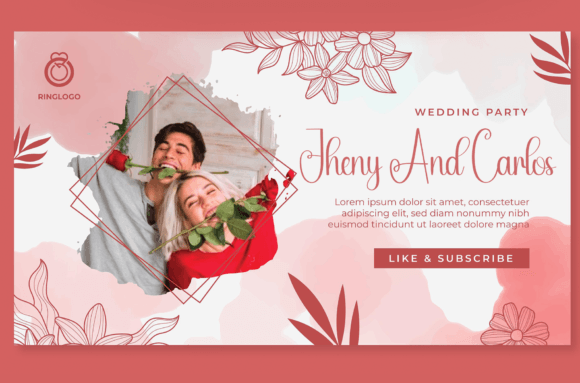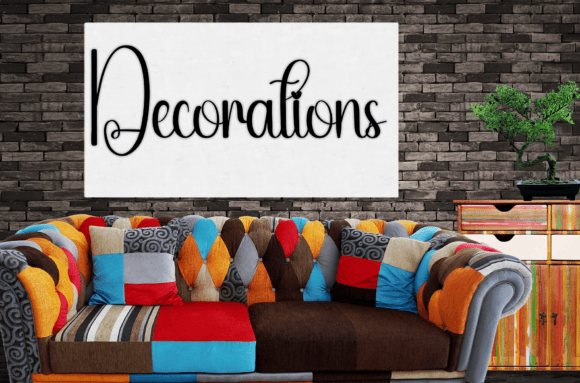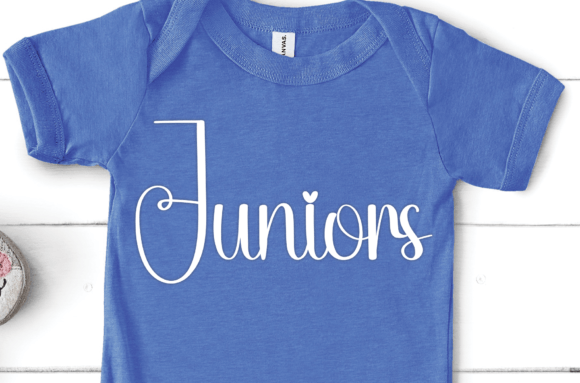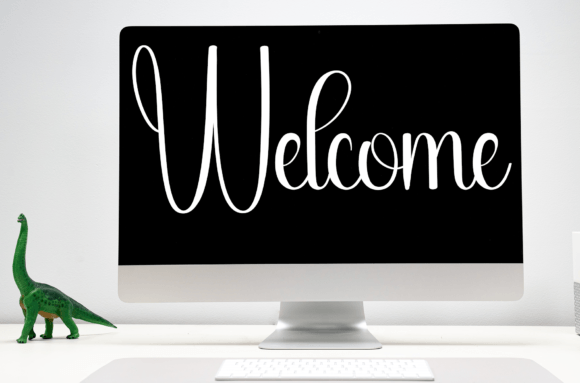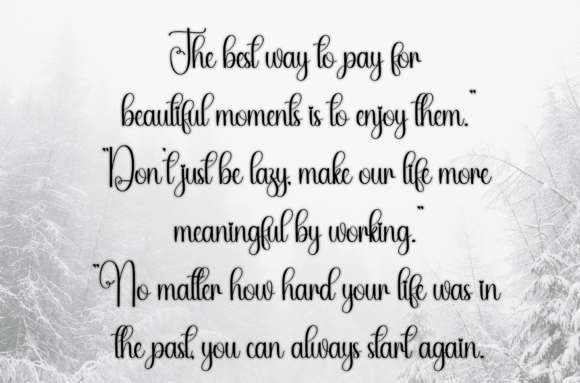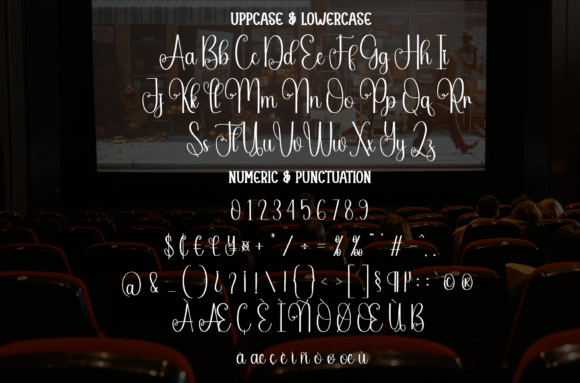
Cinema Font: The Sweet and Friendly Handwritten Font for Creative Designs
Are you looking for a font that can add a touch of sweetness and friendliness to your designs? Look no further than Cinema Font! This beautiful handwritten font is perfect for creating wedding invitations, cards, and other designs that require a fun and creative touch. In this article, we’ll explore the features and benefits of Cinema Font, and show you how to use it to take your designs to the next level.
What is Cinema Font?
Cinema Font is a sweet and friendly handwritten font that is designed to bring a touch of warmth and personality to your designs. With its creative and versatile style, this font is ideal for a wide range of projects, from wedding invitations and cards to posters, flyers, and more. Whether you’re a designer, crafter, or DIY enthusiast, Cinema Font is a great choice for anyone looking to add a personal touch to their work.
Key Features of Cinema Font
So what makes Cinema Font so special? Here are just a few of its key features:
- Handwritten style: Cinema Font has a beautiful, handwritten style that gives it a warm and personal feel.
- Sweet and friendly: This font is designed to be sweet and friendly, making it perfect for designs that require a touch of whimsy and charm.
- Creative and versatile: Cinema Font is a highly versatile font that can be used for a wide range of projects, from formal wedding invitations to playful kids’ party invitations.
- Easily readable: Despite its handwritten style, Cinema Font is easily readable, even at small sizes.
Using Cinema Font in Your Designs
So how can you use Cinema Font in your designs? Here are a few ideas to get you started:
- Wedding invitations: Cinema Font is perfect for creating beautiful, one-of-a-kind wedding invitations that reflect the couple’s personality.
- Cards and stationery: This font is great for creating personalized cards and stationery for special occasions, such as birthdays, anniversaries, and graduations.
- Posters and flyers: Cinema Font can add a touch of fun and creativity to your posters and flyers, making them stand out from the crowd.
- DIY projects: If you’re a crafter or DIY enthusiast, Cinema Font is a great choice for your handmade projects, such as scrapbooking, journaling, and more.
Tips for Getting the Most Out of Cinema Font
Here are a few tips for getting the most out of Cinema Font:
- Experiment with different colors: Cinema Font looks great in a variety of colors, so don’t be afraid to experiment and find the perfect hue for your design.
- Pair it with other fonts: This font pairs well with other fonts, so try combining it with a bold font for headings and a clean font for body text.
- Use it for titles and headings: Cinema Font is perfect for titles and headings, where its creative and playful style can really shine.
In conclusion, Cinema Font is a sweet and friendly handwritten font that is perfect for adding a touch of warmth and personality to your designs. With its creative and versatile style, this font is ideal for a wide range of projects, from wedding invitations and cards to posters, flyers, and more. Whether you’re a designer, crafter, or DIY enthusiast, Cinema Font is a great choice for anyone looking to add a personal touch to their work.
So why not give Cinema Font a try today and see how it can elevate your designs to the next level?